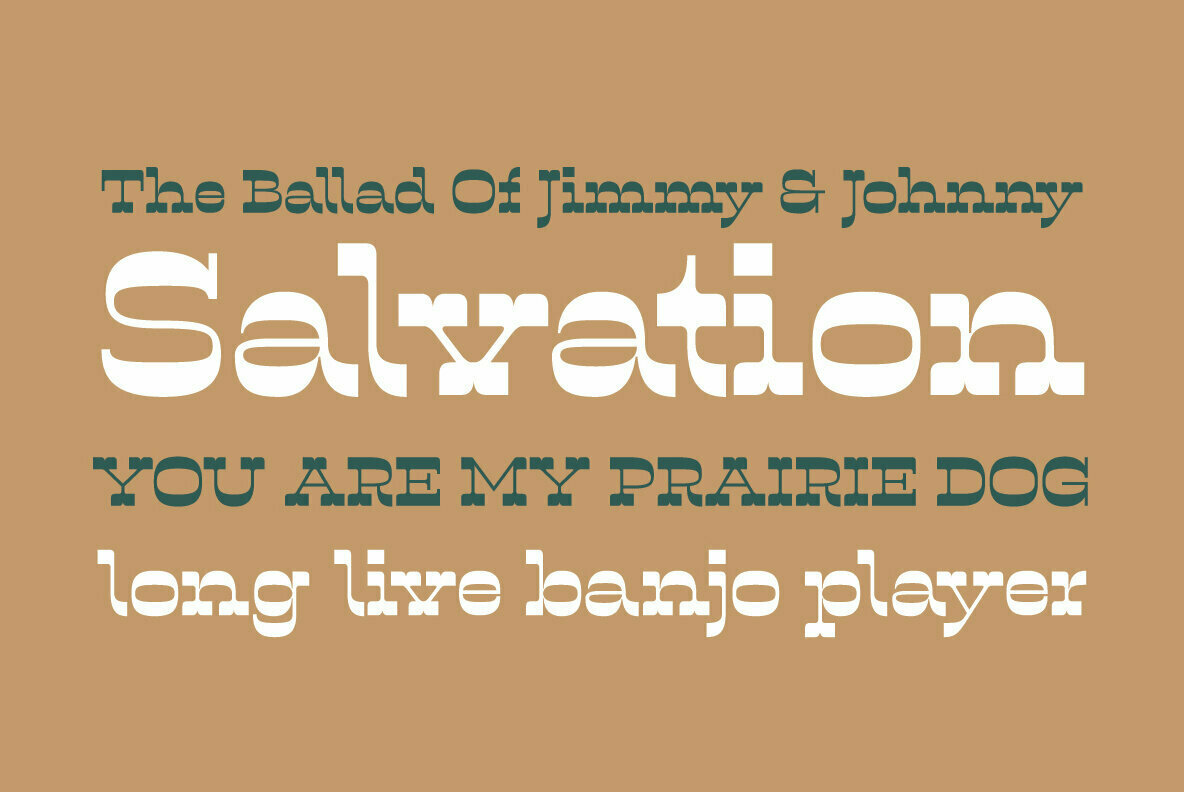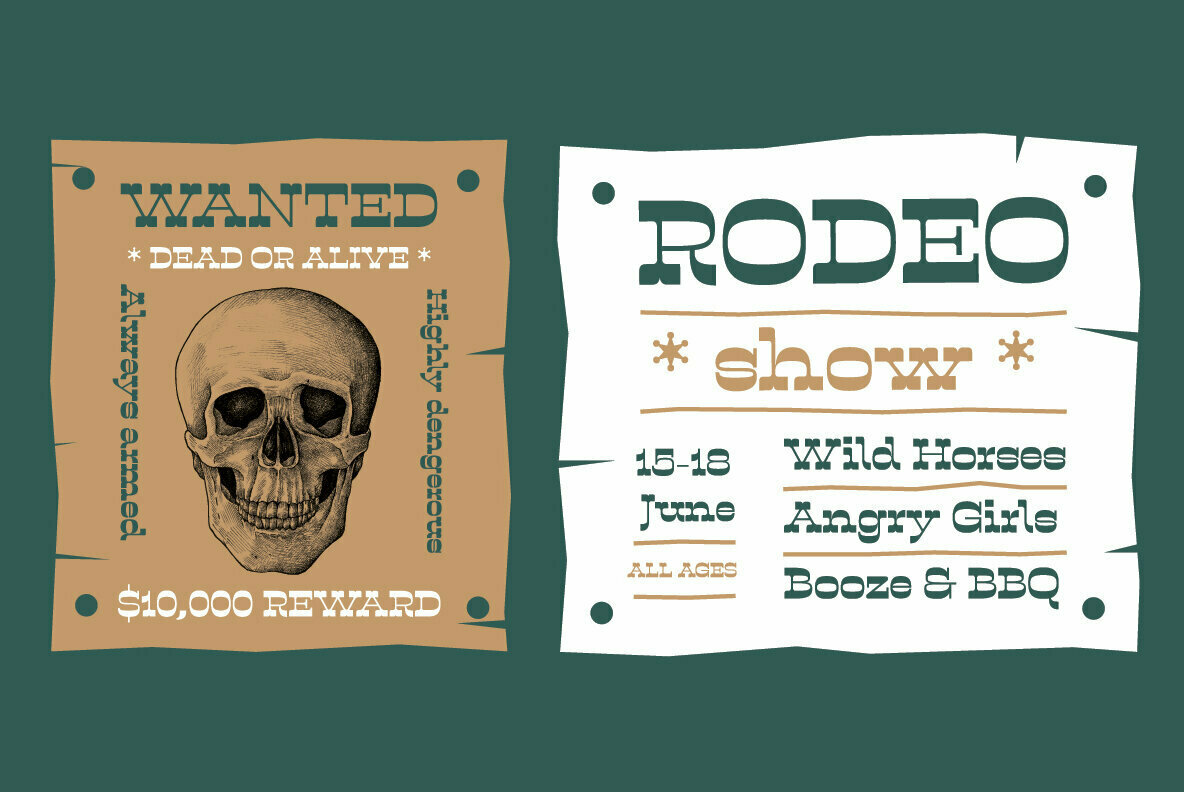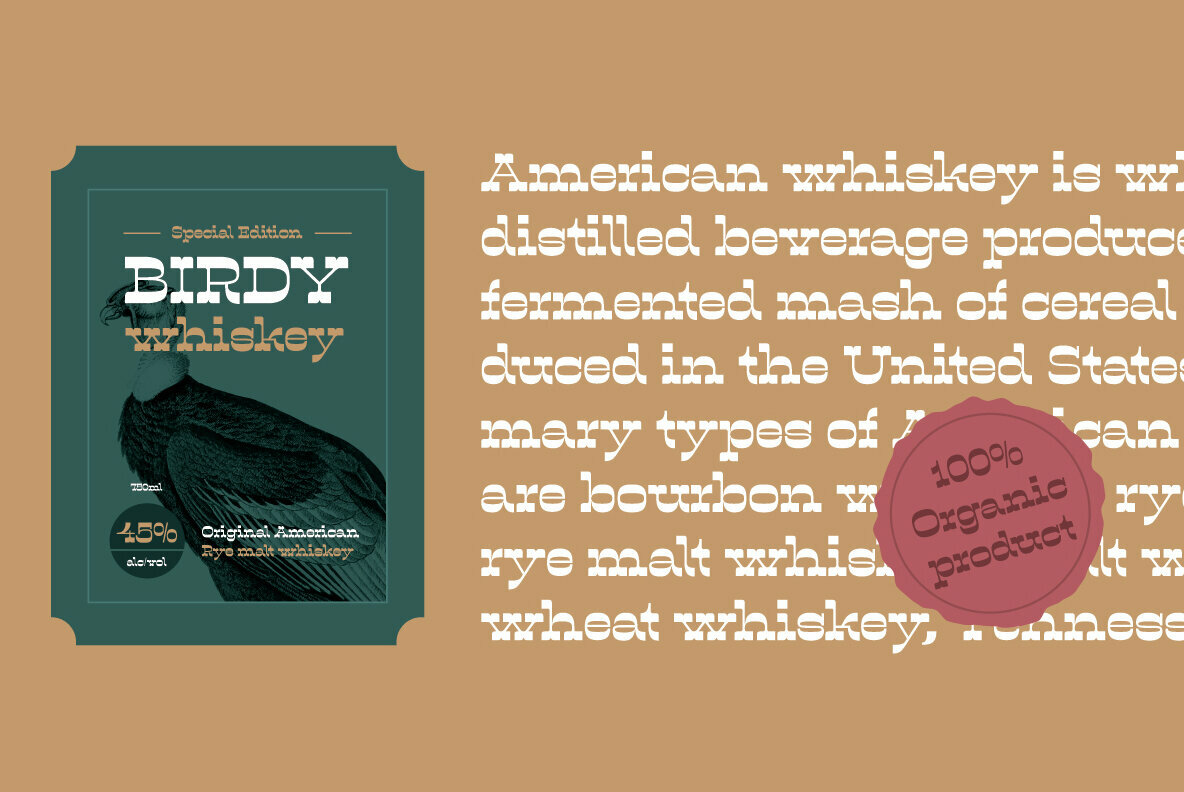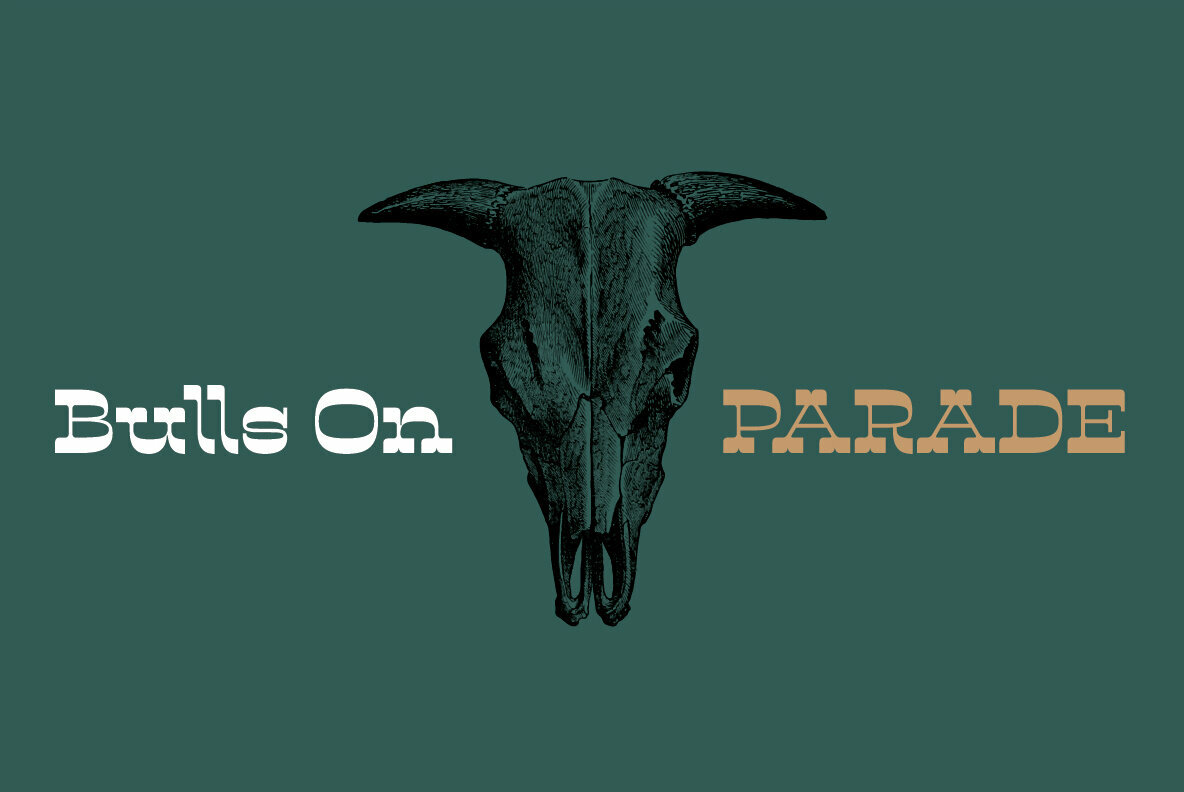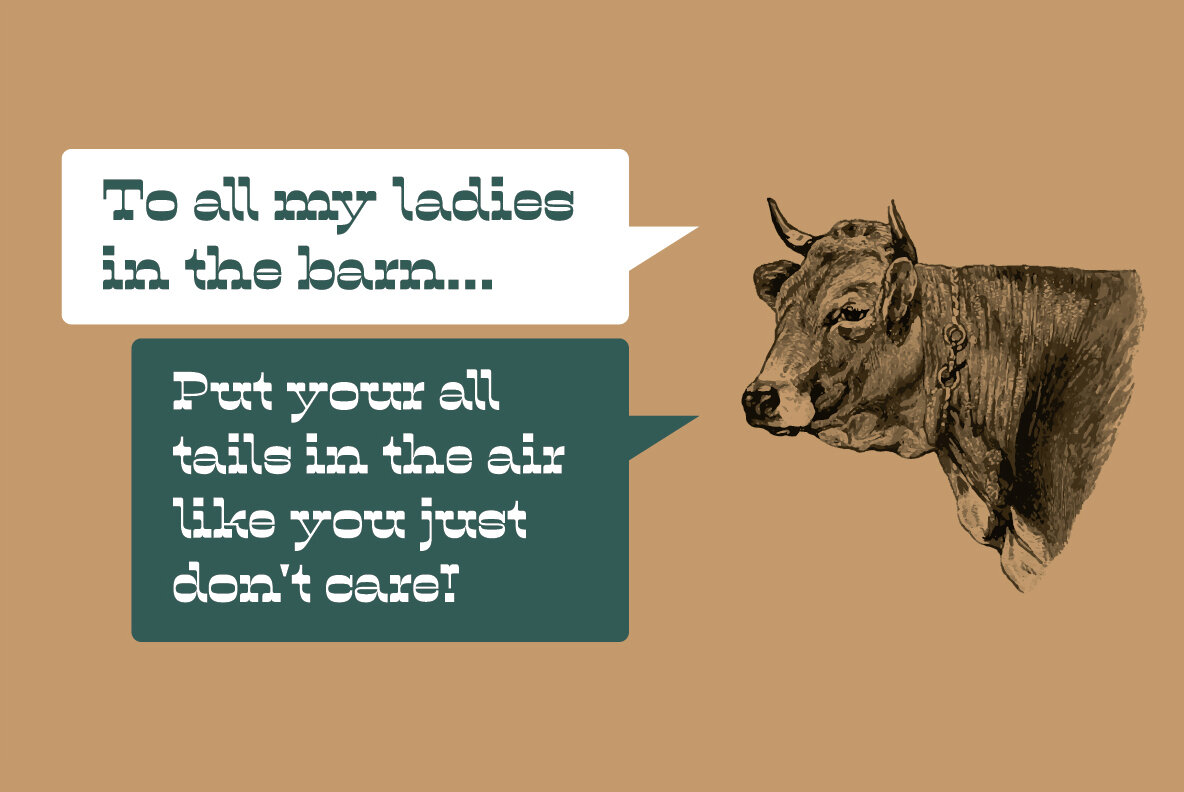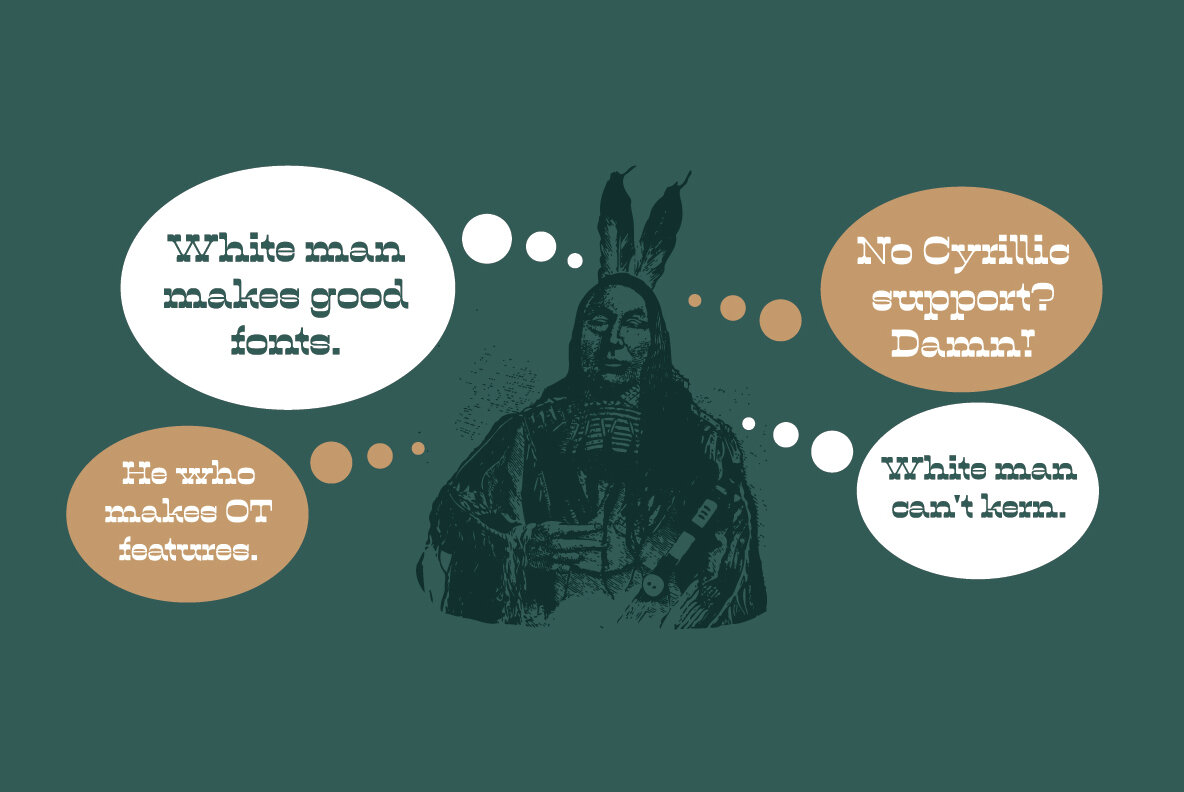
OK Moral Font
OK Moral Regular
OK Moral from Tour de Force Font Foundry presents itself as a bold, single-weight Western typeface that commands attention. Its high inverted contrast and generous width make it a striking addition to any designer's toolkit. The decorative serifs not only evoke a sense of the Wild West but also imbue a touch of modernity.OK Moral: A Dynamic Western Typeface